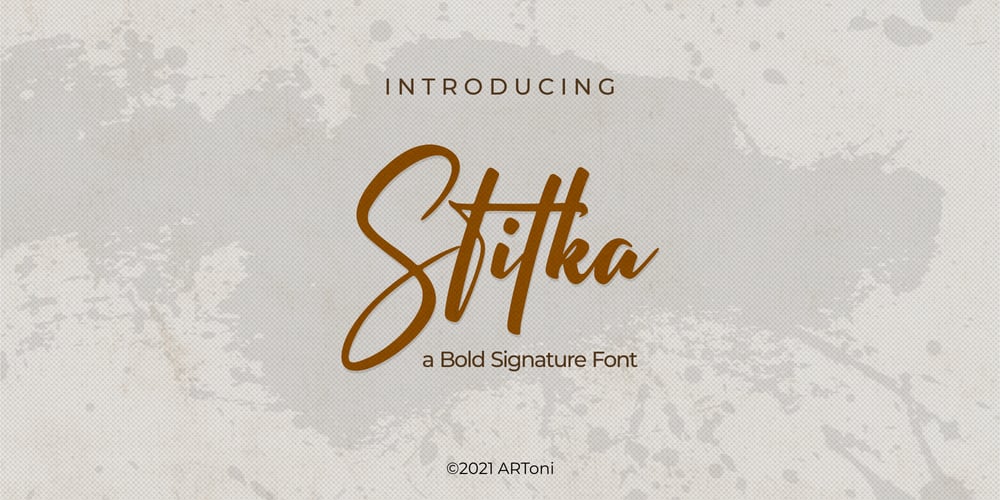
Stitka Font Family was designed by Anthonie Van Hayu and published by ARToni. Stitka contains 1 styles and family package options. Stitka is a chic, refined script font that emanates sophistication and elegance. Its stylish and ligatures make this font the perfect match for any project.